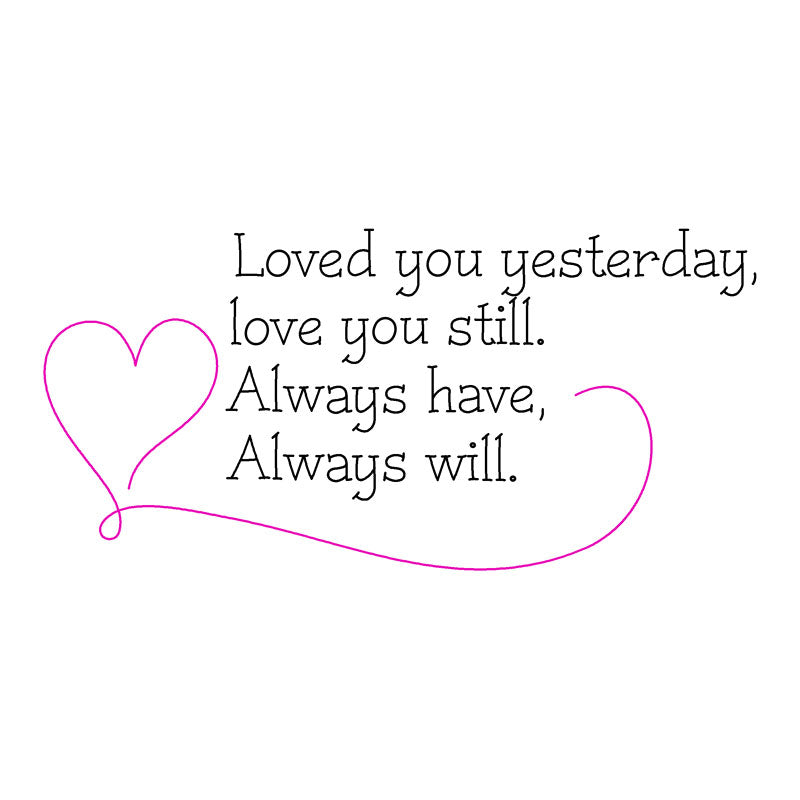
Love You Still
"Love You Still" design has a flourish heart with single line text to use with your pen tools or foil quill pens. It will make a nice addition to your collection for unique card creations!